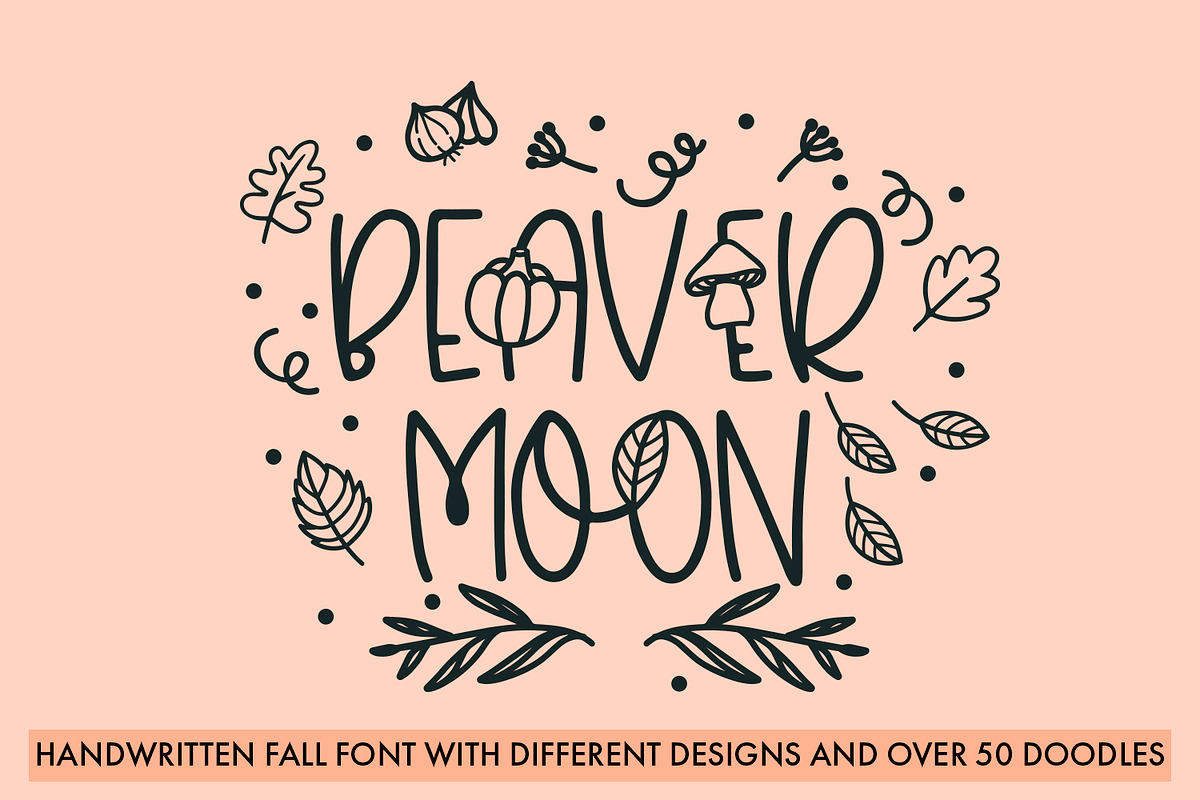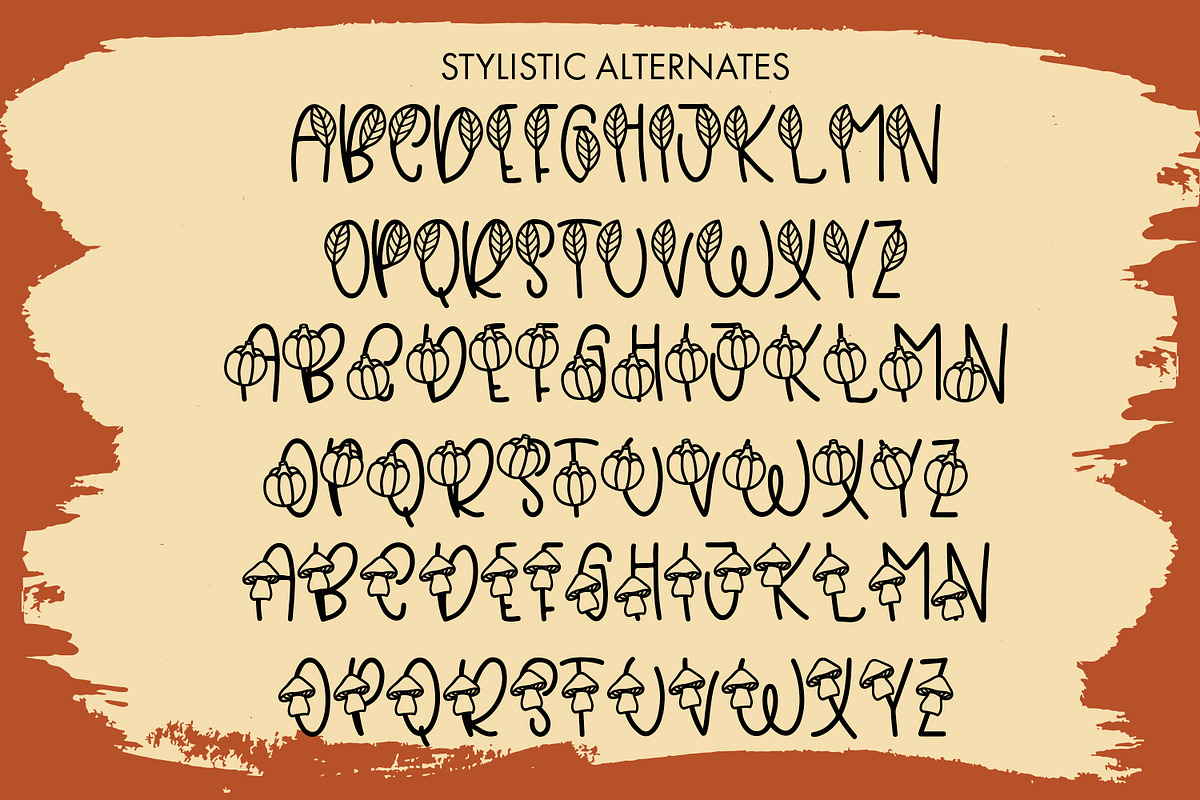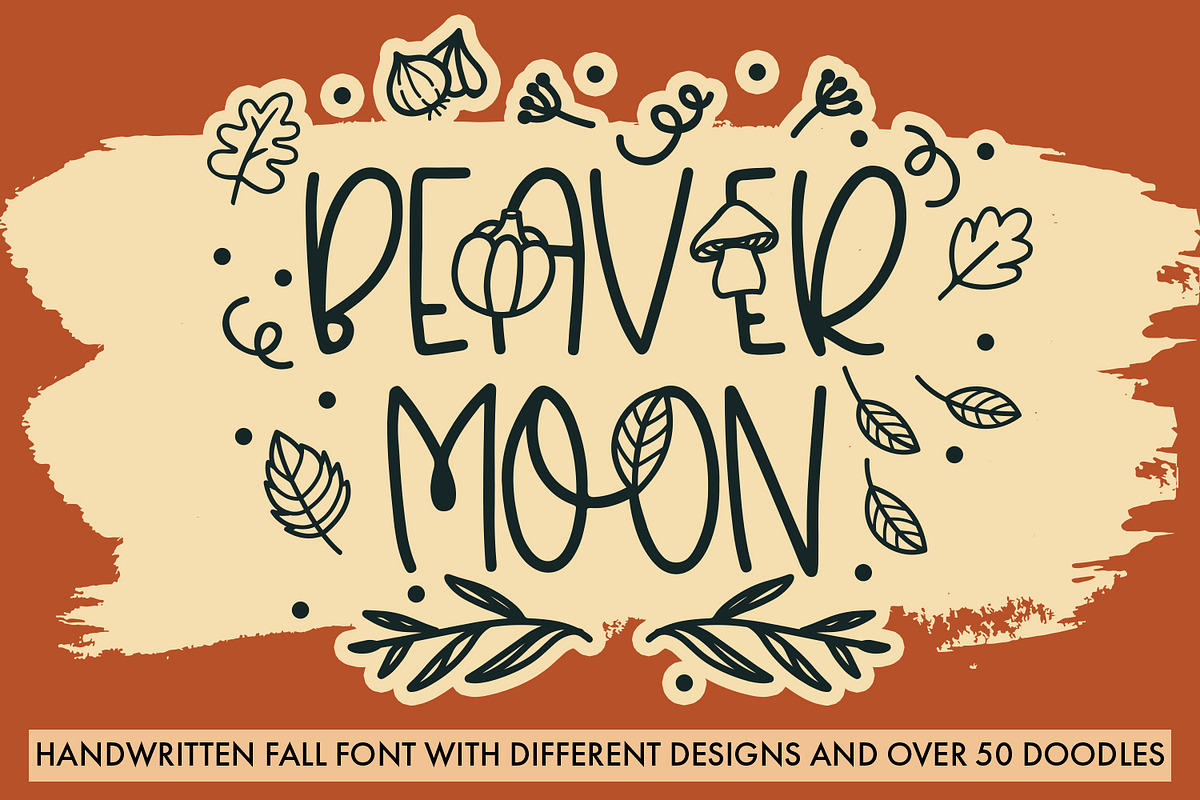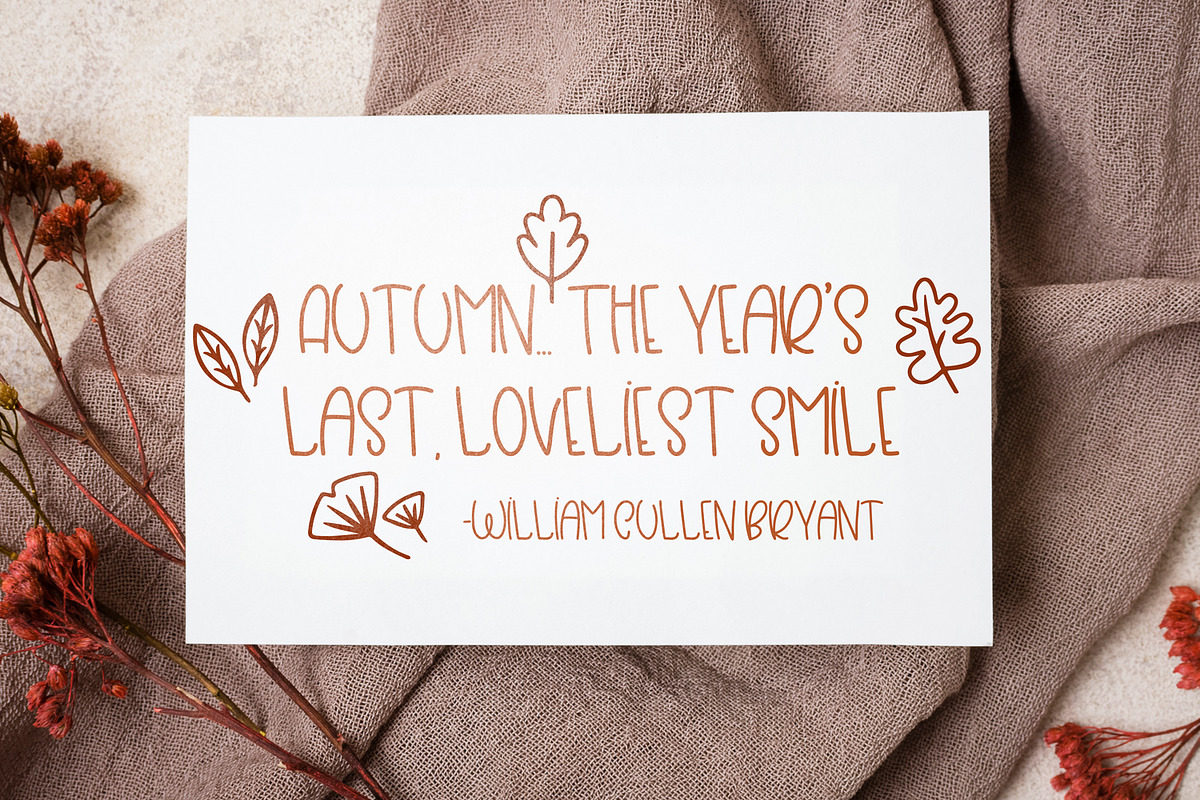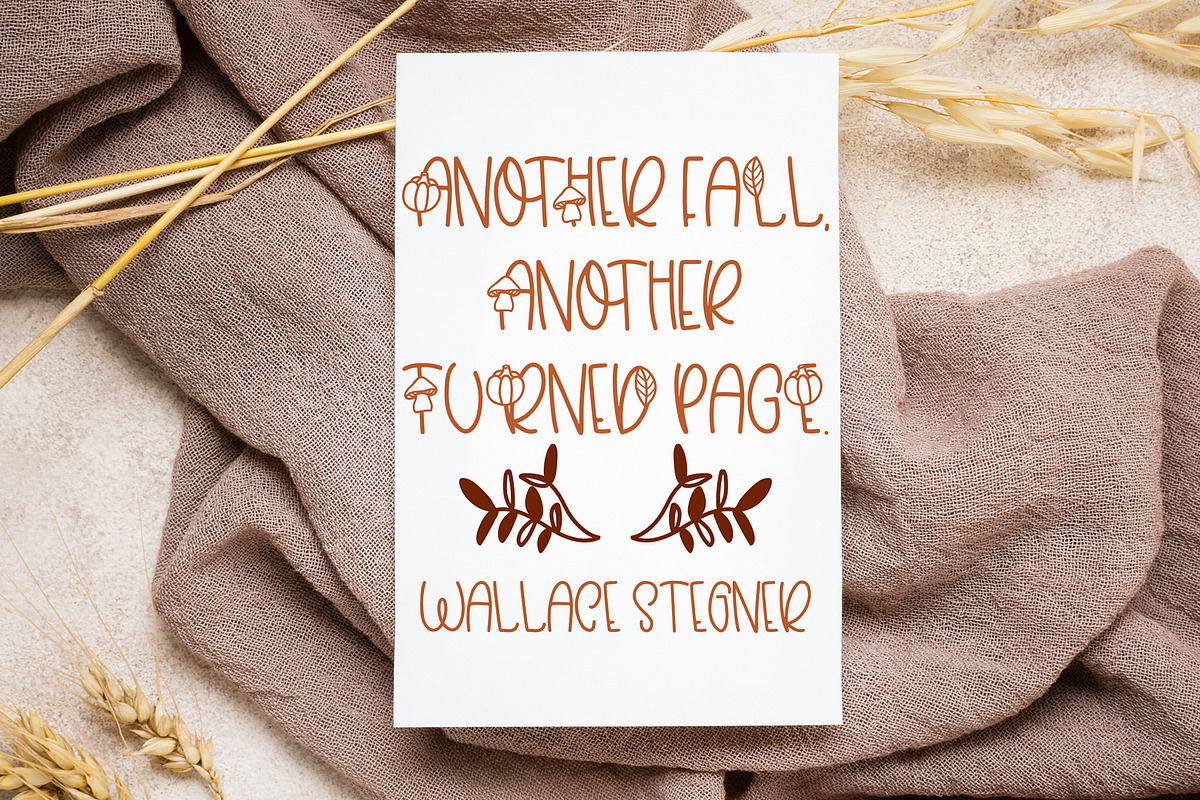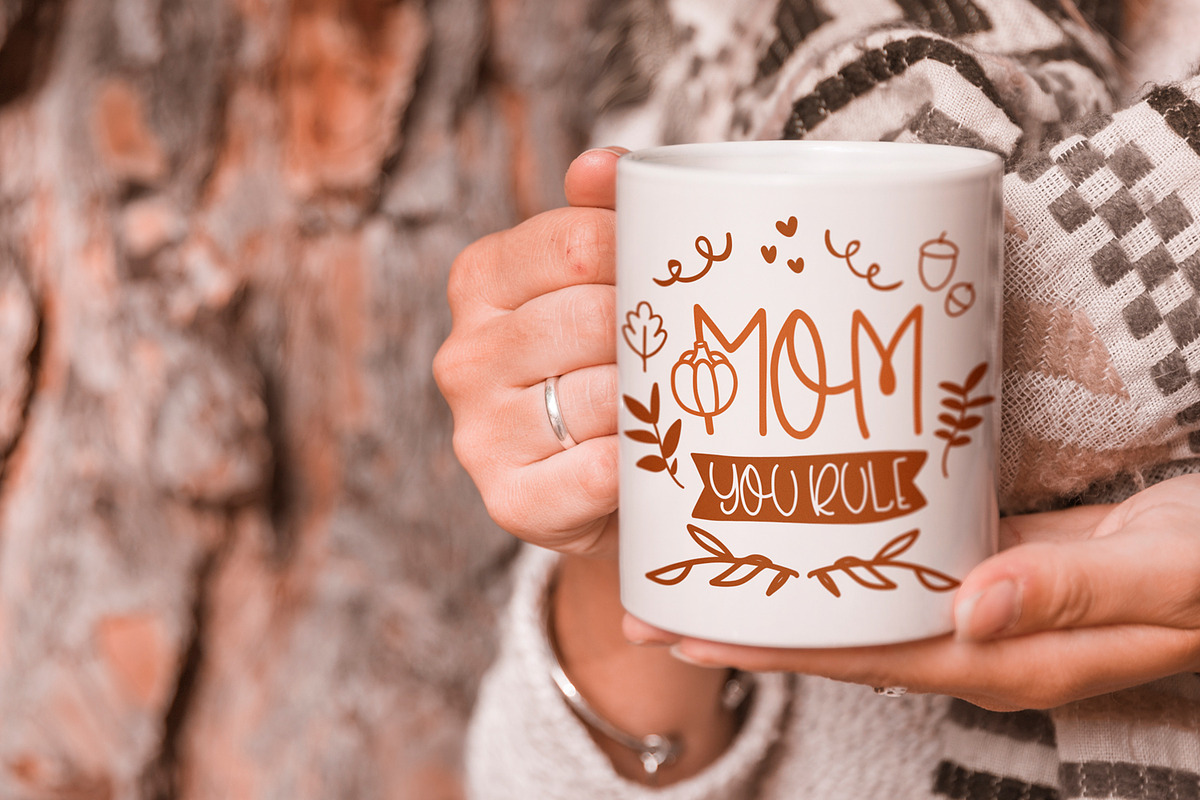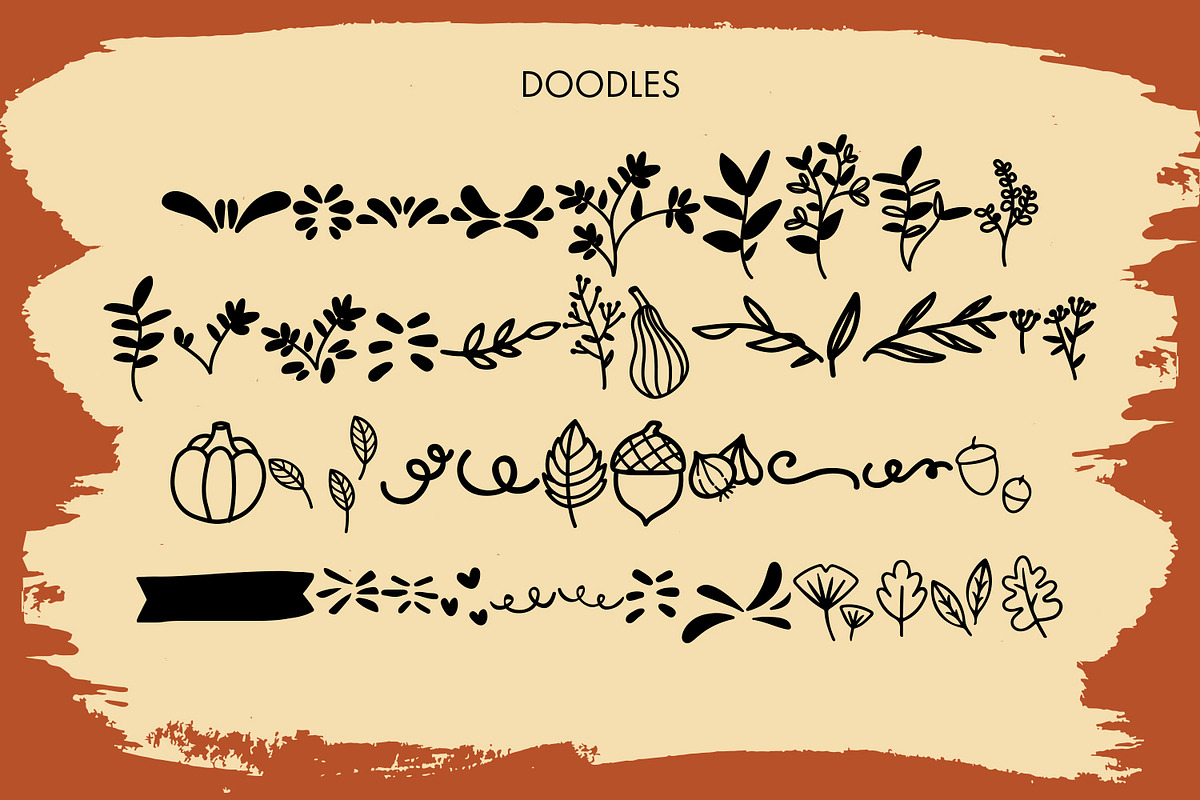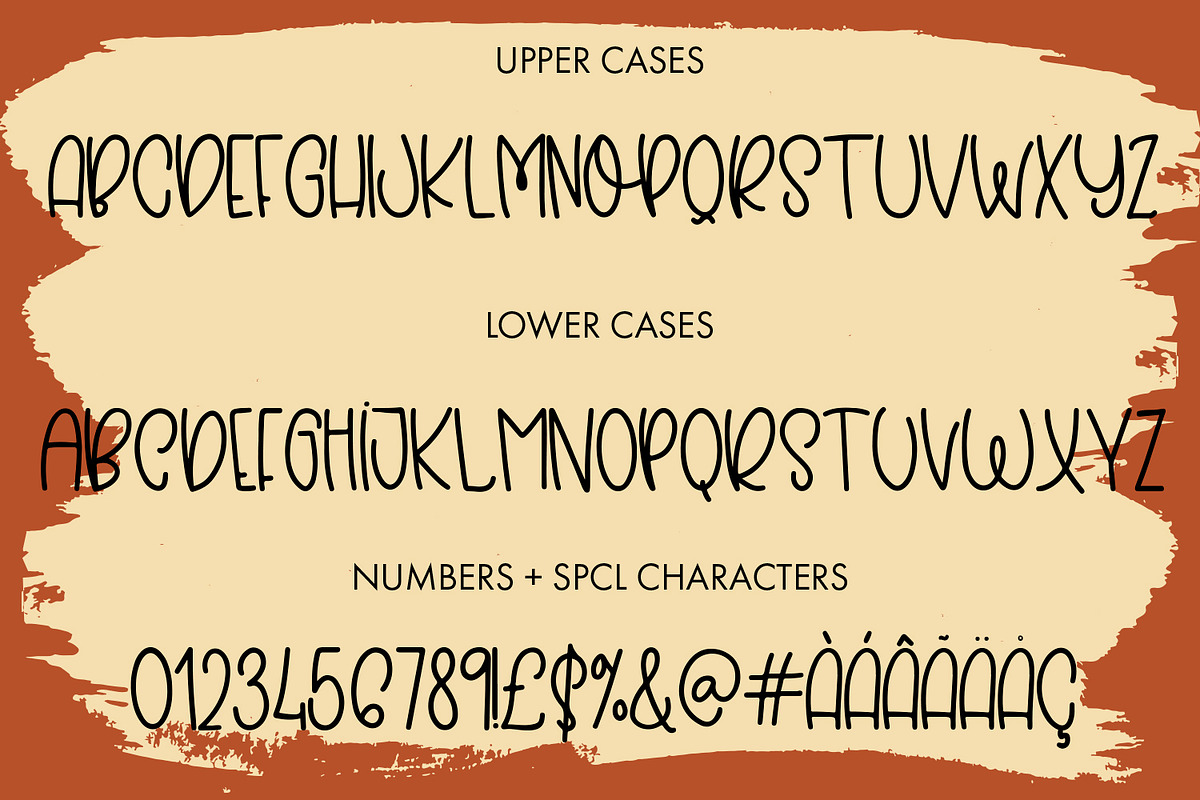
Beaver Moon - Fall Font With Doodles
Beaver Moon - Fall Themed Font With Extra Doodles
Introducing 'Beaver Moon,' a charming handwritten font in a cozy fall theme. Explore its stylistic alternates, featuring a pumpkin, mushroom, and leaf to infuse autumnal character into your designs. Plus, enjoy over 50 delightful fall-themed doodles included with this font for endless creative possibilities!
This font can be used for anything such as T-Shirt designs, phone cases, greeting cards, invitations, mugs and so much more! Be creative but most importantly have fun!
Beaver Moon - Comes with Uppercase A-Z and lowercase a-z letters, 0-9 numbers, stylistic alternates, limited punctuation and supports Western European Languages
Beaver Moon Doodles